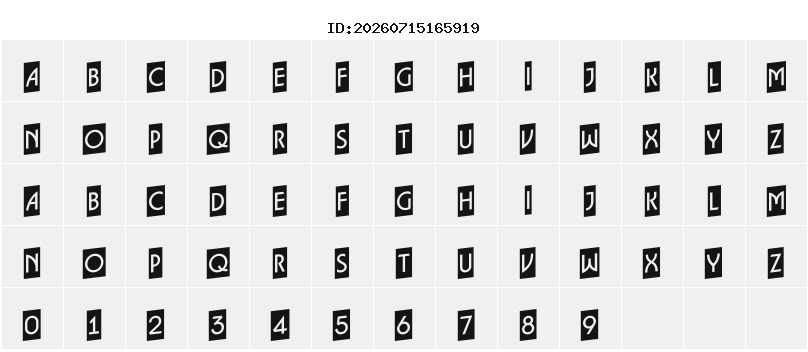
a_LancetCmUp Preview
• Font Name: a_LancetCmUp
• Font ID: ArsenalCompany: a_LancetCmUp: 1998
• Full Font Name: a_LancetCmUp
• Version: 1998; 1.2
• PostScript Name: a_LancetCmUp
• Character Count: 297
• Designer: W.Chufarofsky & M.Slutsker
About a_LancetCmUp.ttf
a_LancetCmUp.ttf is a modern, elegant sans-serif font designed for ultimate readability and visual harmony. Perfect for branding, headlines, web design, and print materials.